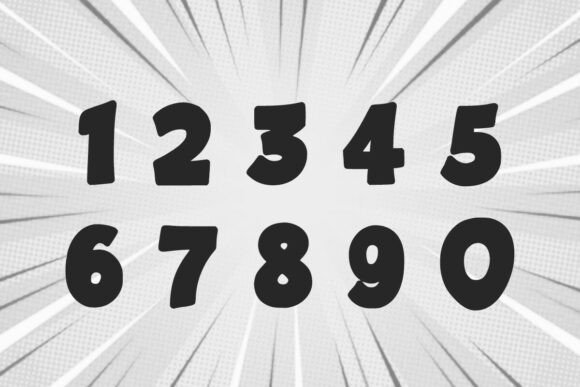
Unleash Your Creativity with Comic Hero Font
Have you ever been stuck on a project, searching for the perfect font to bring your ideas to life? We’ve all been there – staring at a blank canvas, willing the words to magically appear. But what if I told you that the key to unlocking your creative potential lies in a single, whimsical font? Enter Comic Hero Font, a bold and breezy display font that’s sure to infuse your designs with a unique charm.
With its effortless readability and versatility, Comic Hero Font is the perfect addition to any project. Whether you’re working on digital designs, craft arts, presentations, or greeting cards, this typographical gem will help you celebrate each occasion with style. As a designer, you’ll appreciate the value that Comic Hero Font brings to your work – it’s a reliable choice that never fails to impress.
- Font Family: Comic Hero is a comic sans-serif font family that includes 4 styles: Regular, Bold, Italic, and Bold Italic.
- Unique Characteristics: Comic Hero features a playful, childlike aesthetic with rounded edges and friendly letterforms, making it ideal for comic books, children’s books, and other creative projects.
Comic Hero Font Review
Overall, I’d say the Comic Hero Font is a fun and playful typeface that’s perfect for comic book-inspired projects or anything that needs a bit of whimsy. ✨ It’s a bold, energetic font that’s sure to grab attention and add some visual interest to your designs.
One of the things I like about this font is its versatility. ✨ It comes in a range of weights and styles, from light to bold, and even has some fun alternate characters that can add some extra flair to your text. ✨ The font is also highly legible, even at smaller sizes, which makes it a great choice for body text or headlines.
Limitsations
While the Comic Hero Font is a great choice for many projects, it does have some limitations. ⚠️ For one thing, it’s not the most sophisticated font, and it may not be the best choice for projects that require a lot of subtlety or nuance. ⚠️ Additionally, the font’s bold, playful style may not be suitable for all audiences, particularly those who prefer more serious or formal typography.
In terms of overall impression, I’d say the Comic Hero Font is a solid choice for projects that need a bit of energy and personality. It’s not perfect, but it’s a fun and engaging font that’s sure to add some visual interest to your designs.
Key Features
- Fun, playful style
- Highly legible, even at small sizes
- Versatile, with a range of weights and styles
- Fun alternate characters
Comic Hero Font is perfect for:
- Comic book covers and graphic novels.
- Video game titles and character names.
- Movie posters and advertising materials.
- Graphic design and illustration projects.